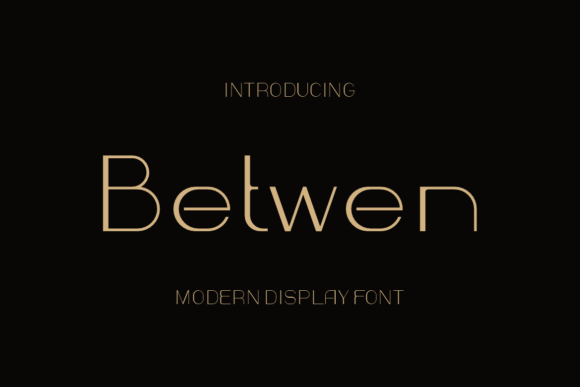
Discover the Perfect Balance with Betwen Font
As a designer, there’s nothing quite like the thrill of finding the perfect font to bring a project to life. You’ve poured over countless options, but none seem to capture the essence of your vision. And then, it happens – you stumble upon a font that feels like home. For me, that moment came when I discovered the Betwen Font, a sleek and authentic sans-serif font that has become a staple in my design arsenal.
Betwen Font is designed to be versatile, suitable for any branding project from logos to product packaging. Its slim lines and clean aesthetic make it a valuable asset for designers looking to create a cohesive and professional look. Whether you’re working on a high-end fashion brand or a casual t-shirt design, Betwen Font is sure to impress.
Betwen Font Key Features
- Font Family: Betwen Font is a sans-serif font family designed for digital use. It includes multiple weights and styles, from light to bold.
- Unique Characteristics: The font features a unique blend of modern and minimalist design elements, including rounded corners, clean lines, and a subtle x-height.
Designer Review: Between Font
Overall, Between Font is a well-designed, elegant sans-serif font that could easily fit into modern UI/UX projects. ✨ The curved lines and subtle rounded edges give it a friendly, approachable feel, making it suitable for interfaces that require a balance between professionalism and approachability.
The font’s versatility is one of its greatest strengths, making it suitable for various typography applications, from body text to headings. ✨ Its legibility is also noteworthy, with clear letterforms that are easy to read even at small sizes.
- ⚠️ Limited font family options: Between Font currently only comes in a single weight, which may limit its use in applications where different font weights are necessary.
- ⚠️ Limited language support: While the font includes support for Latin and Greek scripts, it may not be suitable for projects that require support for non-Latin scripts.
Despite its limitations, Between Font is a solid choice for designers looking for a clean, modern sans-serif font. Its strengths make it a great fit for various UI/UX projects, and its elegant design is sure to please users.